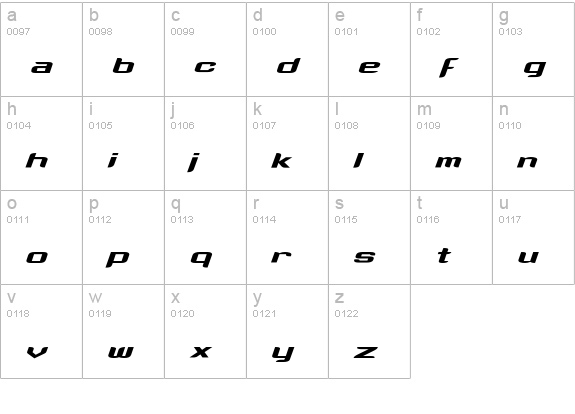
Introducing Megahertz-InItalic font - a sleek and modern typeface designed to make your projects stand out. With its stylish italic design, this font exudes sophistication and elegance. The clean lines and sharp angles of Megahertz-InItalic font make it perfect for a wide range of design applications, from branding to editorial design. What's even better is that Megahertz-InItalic font is available for free download at FontsMarket.com. Yes, you read that right - you can get your hands on this stunning font without spending a dime. Whether you're a designer looking to add a touch of class to your projects or a business owner wanting to elevate your brand's image, Megahertz-InItalic font is the perfect choice. Don't miss out on the opportunity to enhance your designs with this beautiful and versatile font. Download Megahertz-InItalic font for free today at FontsMarket.com and take your projects to the next level!